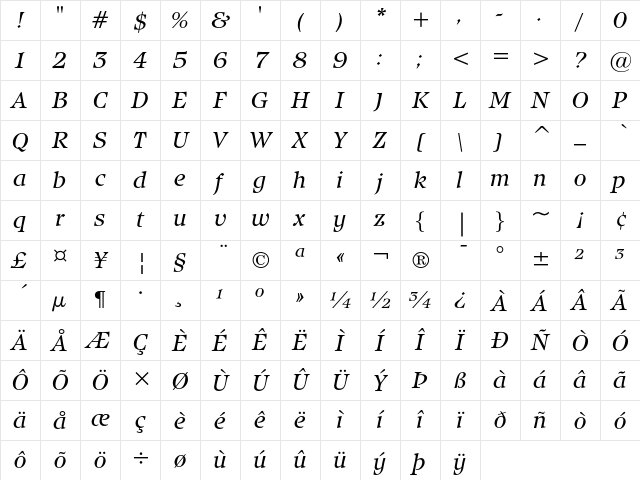
ITC Isbell Book Italic
Style: Book Italic
ITC Isbell Family
ITC Isbell Book Italic
Design Context for ITC Isbell
ITC Isbell is a composed and adaptable typeface that performs quietly and consistently across a wide range of design contexts. The slanted form adds forward momentum and visual energy.
Pro Tip: Use ITC Isbell for emphasis, pull quotes, and subheadings where its slanted energy can add rhythm to the layout.